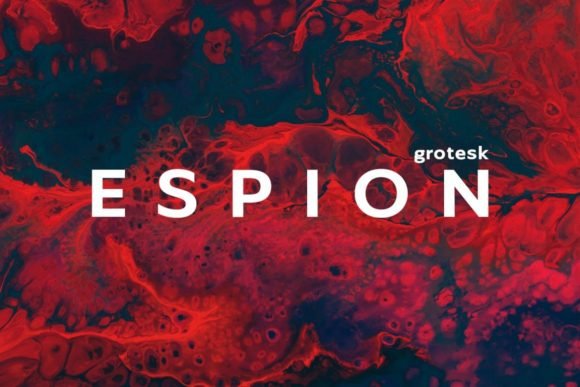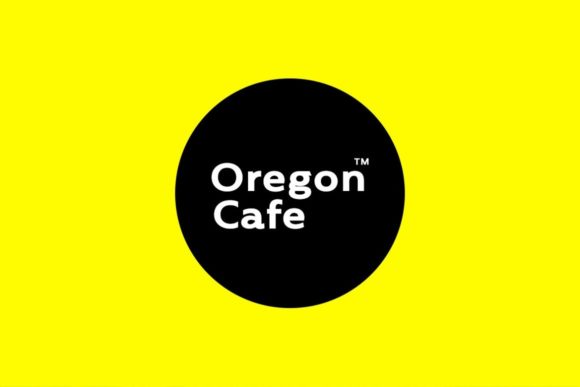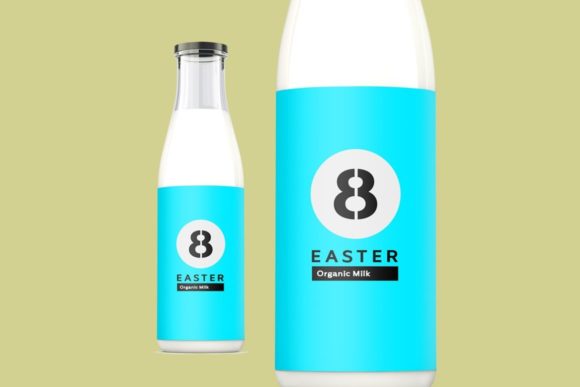
Have you ever stared at a blank canvas, eager to bring a bold idea to life? The moment of creation is exhilarating, but it can also be daunting. As a designer, you know that the right font can make or break a project. That’s why we’re excited to introduce you to the Espion Grotesk Font, a fresh and modern display font that’s guaranteed to bring a classic look to any project.
Whether you’re working on a poster, logo, or branding material, Espion Grotesk Font is the perfect choice to elevate your design. Its versatility and timeless appeal make it a valuable addition to any designer’s toolkit. With Espion Grotesk Font, you can create stunning visuals that capture attention and leave a lasting impression. Try it out and see the magic for yourself!
- Unique Characteristics: Espion Grotesk features a geometric sans-serif design with a modern and sophisticated feel, making it ideal for use in corporate and luxury branding
Designer Review: Espion Grotesk Font
First off, I have to say that Espion Grotesk is a solid choice for any design project. ✨ The font’s clean lines and geometric shapes give it a modern feel that’s perfect for tech, finance, and other industries where simplicity is key. I’ve found it to be highly legible, even at small font sizes.
Another thing that works well is the font’s versatility. ✨ It comes in a range of weights, from light to bold, which makes it easy to create a visual hierarchy in your design. I’ve also appreciated the font’s consistency across different platforms and devices.
That being said, there are a few limitations to consider. ⚠️ For one, the font’s sans-serif style may not be the best choice for projects that require a more traditional or elegant feel. Additionally, the font’s geometric shape may make it difficult to read at very large font sizes.
Overall, I’d say that Espion Grotesk is a great addition to any designer’s toolkit. While it may not be the best choice for every project, it’s definitely a solid option for modern, clean designs. If you’re looking for a font that’s easy to read and versatile, I’d definitely recommend giving it a try.
- Highly legible font
- Range of weights (light to bold)
- Consistent across different platforms and devices
- Modern, geometric shape
For the best results, use Espion Grotesk in designs that require a strong, bold font. This font is particularly well-suited for: